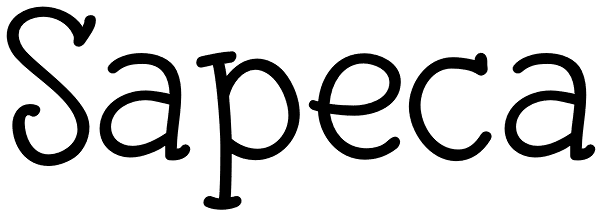
Sapeca
This project started from an idea to create a fun & informal typeface that would be cool for designers and for the general public. So, Just in Type designed a font with several OpenType features to create different letterings for different...